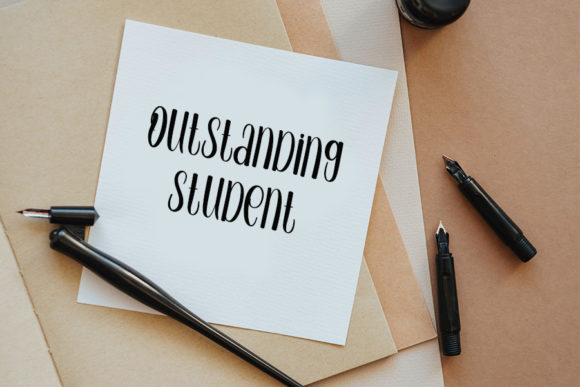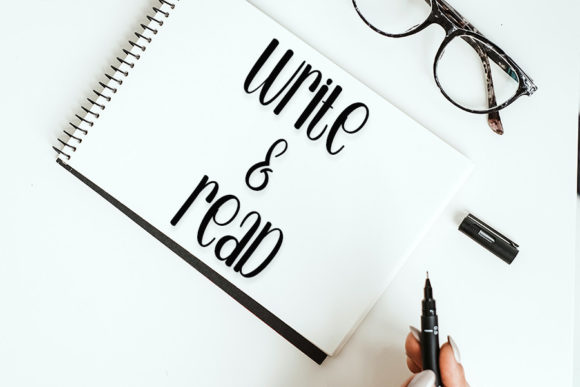
Writhinks Font
db-ku.com - Script & Handwritten -- Writhinks is a friendly handwritten font, carefully designed to become a true favorite. It maintains its classy calligraphic influences while feeling contemporary and fresh.